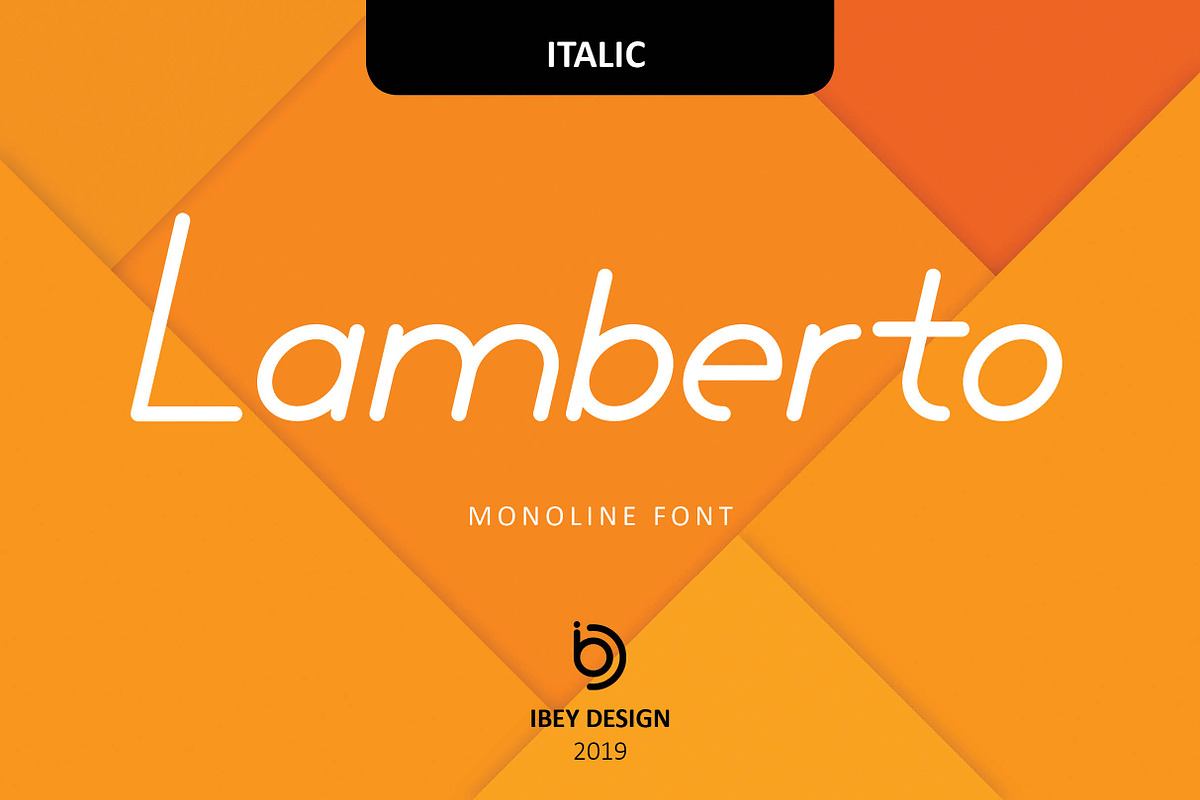
The Lamberto Italic - Monoline Font Free Download is a sleek and modern typeface designed to bring a clean, professional touch to your designs. Featuring elegant italic letterforms with consistent monoline strokes, this font is perfect for creating sophisticated logos, branding, editorial designs, and promotional materials. Whether you're designing for a modern brand, a minimalist project, or a contemporary publication, Lamberto Italic adds a refined, streamlined look to your work.
Lamberto Italic - Monoline Font Free Download is ideal for designers seeking a modern, clean font that offers elegance and readability. Perfect for sleek branding, website design, and professional content, this font will elevate your creative work with its timeless style. Download it today and enhance your projects with the smooth and sophisticated look of Lamberto Italic!